There’s something absolutely captivating about the way anime fonts can instantly transport you to different worlds. Whether it’s the elegant brush strokes reminiscent of ancient Japanese calligraphy or the futuristic digital glyphs of cyberpunk series, these fonts don’t just display text – they tell stories.
It’s not just about looking cool (though they absolutely do); anime fonts are an integral part of visual storytelling that can make or break the atmosphere of your design.
In this comprehensive guide, we’ll explore the fascinating world of anime typography, from traditional Japanese-inspired fonts to modern digital creations. So grab your favorite manga, crank up that opening theme, and let’s dive into this typographic adventure together!
The Best Anime Fonts of 2026
Yokai Game
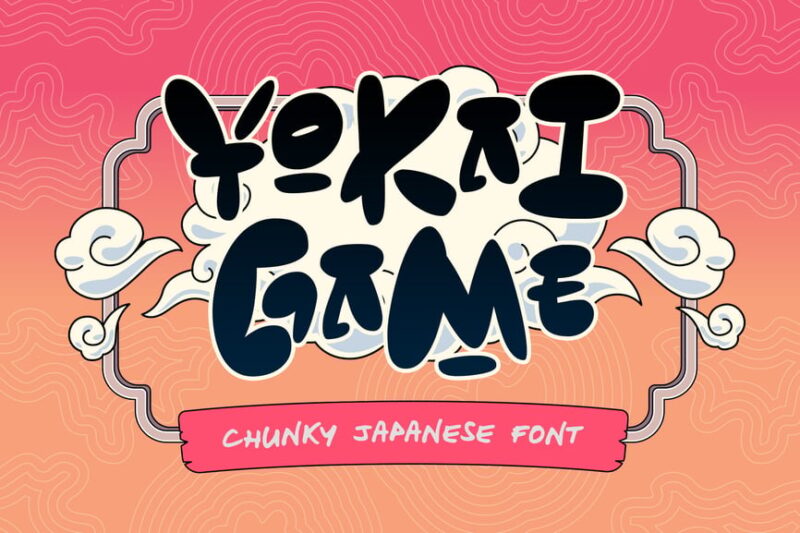
Yokai Game is a bold, chunky Japanese-style bubble font that exudes a playful and energetic vibe. Its thick strokes and rounded edges make it perfect for game titles, anime-inspired designs, and eye-catching headlines that demand attention.
Hanbai
Hanbai is an authentic Japanese display font that captures the essence of traditional Asian typography. Its clean lines and balanced proportions make it ideal for creating elegant logos, signage, and cultural-themed designs with a touch of oriental flair.
Shogun
Shogun is a dynamic handwritten font that embodies the spirit of Japanese calligraphy. Its fluid strokes and organic texture lend themselves well to creating expressive titles, posters, and branding materials that require a touch of artistic authenticity.
Henshin
Henshin is a versatile Japanese font that blends traditional and modern design elements. Its clean, geometric shapes with subtle angular details make it suitable for contemporary projects that aim to capture the essence of Tokyo’s vibrant culture and design scene.
Ghozda
Ghozda is a modern Japanese typeface that offers a fresh take on traditional characters. Its sleek lines and balanced proportions make it an excellent choice for minimalist designs, tech-related projects, and contemporary branding that requires a touch of Japanese aesthetics.
Sakura Town
Sakura Town is a charming decorative font that evokes the beauty of Japanese cherry blossoms. Its delicate, flowing forms and subtle details make it perfect for creating whimsical designs, romantic themes, and projects that celebrate Japanese culture and nature.
Rufing
Rufing is a playful sans-serif cartoon font with a sporty twist, perfect for baseball-themed designs. Its bold, rounded characters and fun personality make it ideal for creating energetic headlines, team logos, and youth-oriented marketing materials.
Samurai Blast
Samurai Blast is an explosive Japanese-style font that combines traditional calligraphy with modern edge. Its dynamic strokes and sharp angles make it perfect for action-packed designs, martial arts themes, and projects that require a bold, warrior-like presence.
Cas Kirigami
Cas Kirigami is a futuristic Japanese typeface that fuses oriental aesthetics with cyberpunk elements. Its unique blend of sharp angles and flowing curves makes it ideal for sci-fi themed designs, anime-inspired projects, and cutting-edge branding that pushes creative boundaries.
Namra
Namra is a distinctive Korean-style display typeface that combines traditional and contemporary design elements. Its bold strokes and unique character shapes make it perfect for creating eye-catching headlines, logos, and designs that celebrate Korean culture and aesthetics.
Asian cyborg
Asian cyborg is a futuristic decorative font that blends Asian-inspired elements with a sci-fi aesthetic. Its sharp, angular forms and mechanical details make it ideal for creating cutting-edge designs, anime-themed projects, and tech-oriented branding with an Eastern twist.
Yiroka
Yiroka is a modern Japanese font that strikes a balance between traditional calligraphy and contemporary design. Its clean lines and subtle curves make it versatile for various applications, from sleek logos to elegant packaging designs with a Japanese flair.
Souta
Souta is a bold Japanese-style font that commands attention with its strong, geometric shapes. Its clean lines and balanced proportions make it excellent for creating impactful headlines, modern logos, and designs that require a strong Japanese-inspired presence.
Ready to explore the world of anime typography? Whether you’re a seasoned otaku or just discovering the beauty of anime aesthetics, these fonts are your passport to creating designs that truly capture the spirit of this beloved art form.